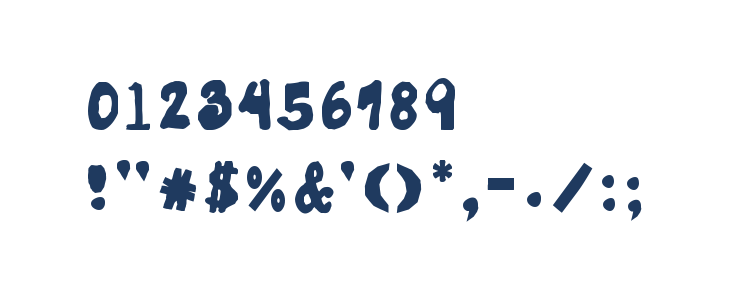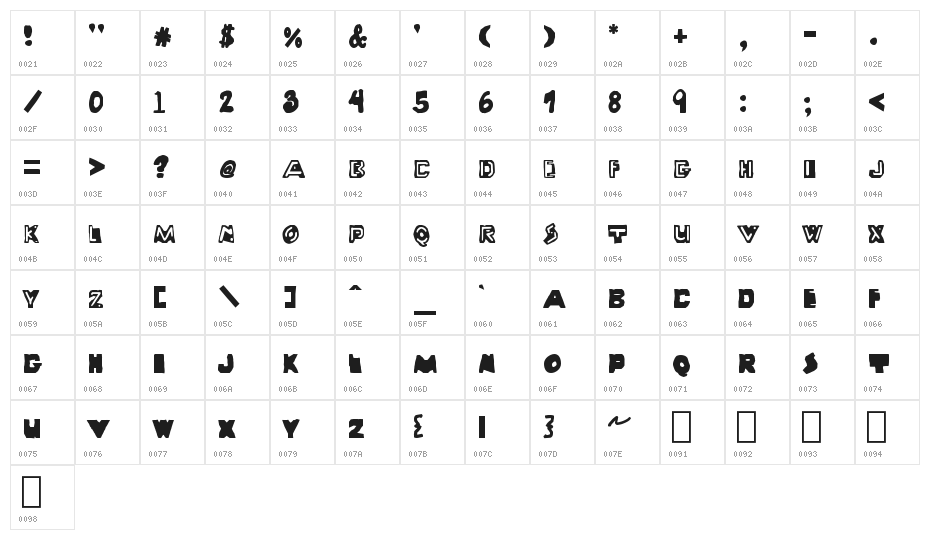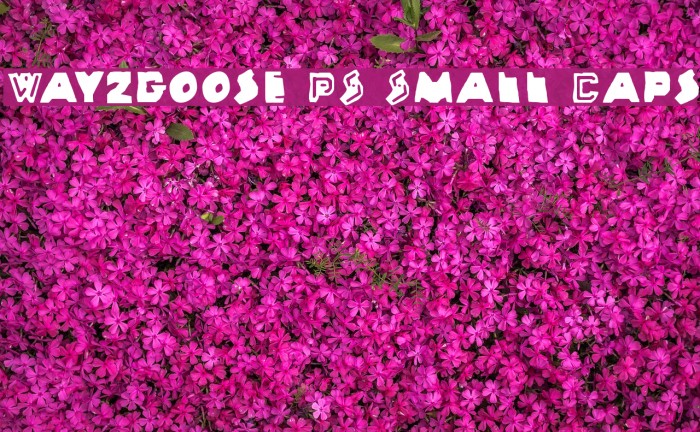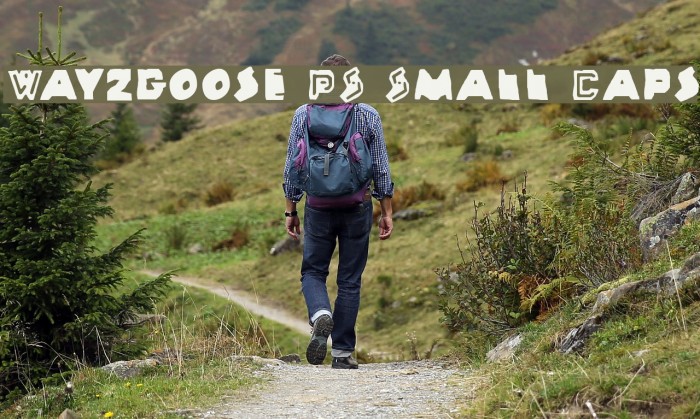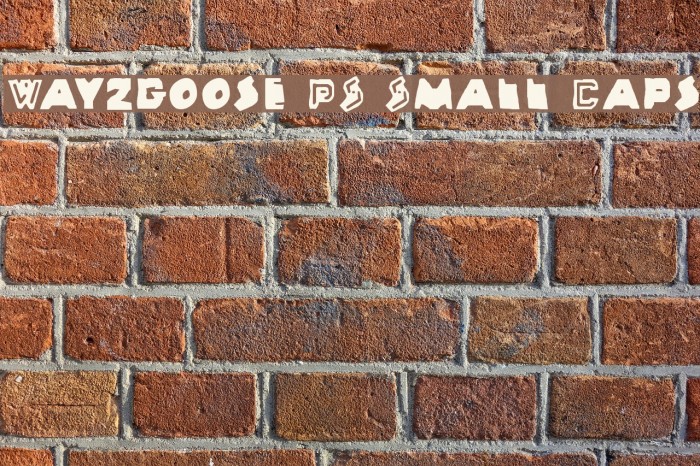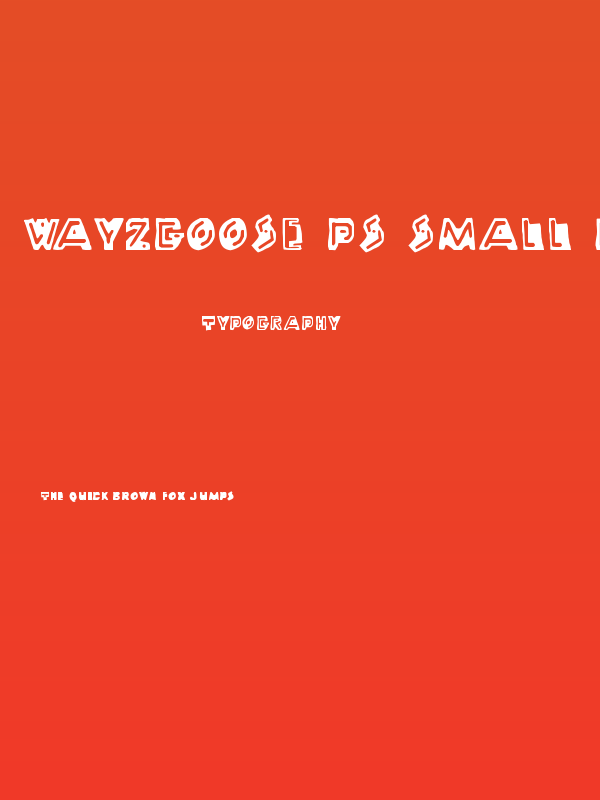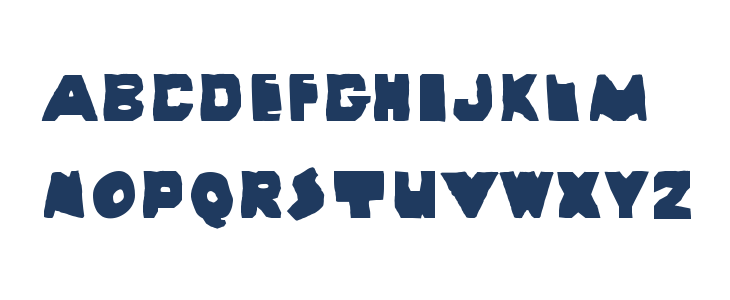
Wayzgoose PS Small Caps Font
Wayzgoose PS Small Caps Description
This font features a bold and playful design with a hand-drawn aesthetic. The characters are irregular and slightly distorted, giving them a unique and artistic appearance. The uppercase letters are prominent and eye-catching, while the numbers and special characters maintain the same quirky style. The font's uneven strokes and varying thicknesses contribute to its dynamic and energetic feel, making it ideal for creative and informal projects.
| Overall Style | Artistic, Playful |
| Proposed Projects | Ideal for posters, children's books, creative branding, and artistic projects. |